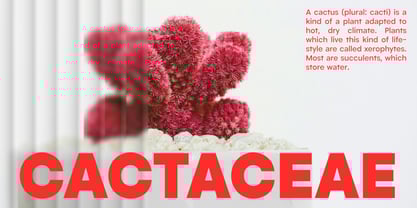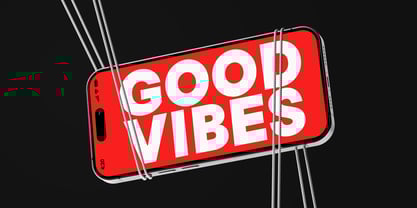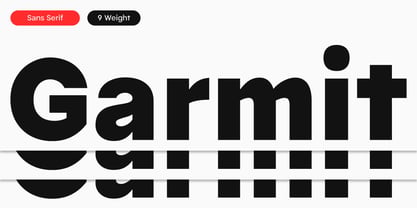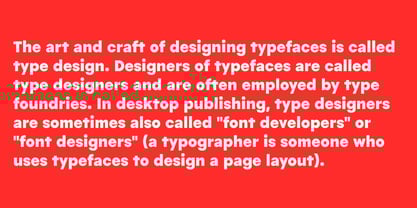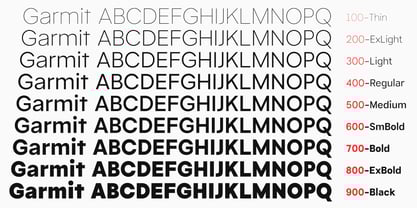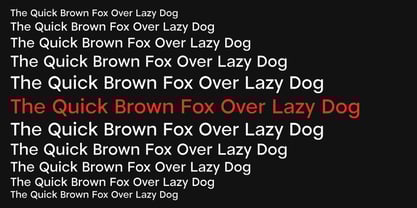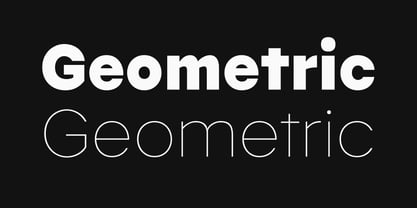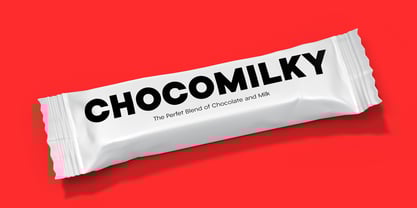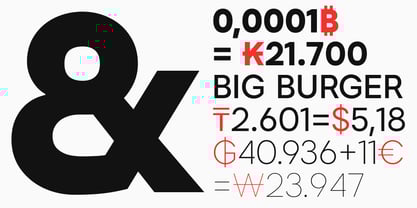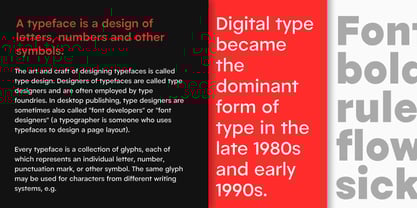
Garmit
by Fitrah Type
The Garmit Font Family was designed by Moch Fitrah Hidayat and published by Fitrah Type. Garmit contains 9 styles and family package options. More about this family
Garmit is a geometric sans-serif typeface that emphasizes precision and simplicity. With balanced letterforms and a clean structure, Garmit delivers a modern aesthetic suitable for a wide range of design needs, from branding and editorial to digital interfaces. Its sharp yet friendly characteristics ensure optimal readability without sacrificing uniqueness. Garmit is the perfect choice for designers seeking a professional look with a futuristic touch.
Designers: Moch Fitrah Hidayat
Foundry: Fitrah Type
Garmit